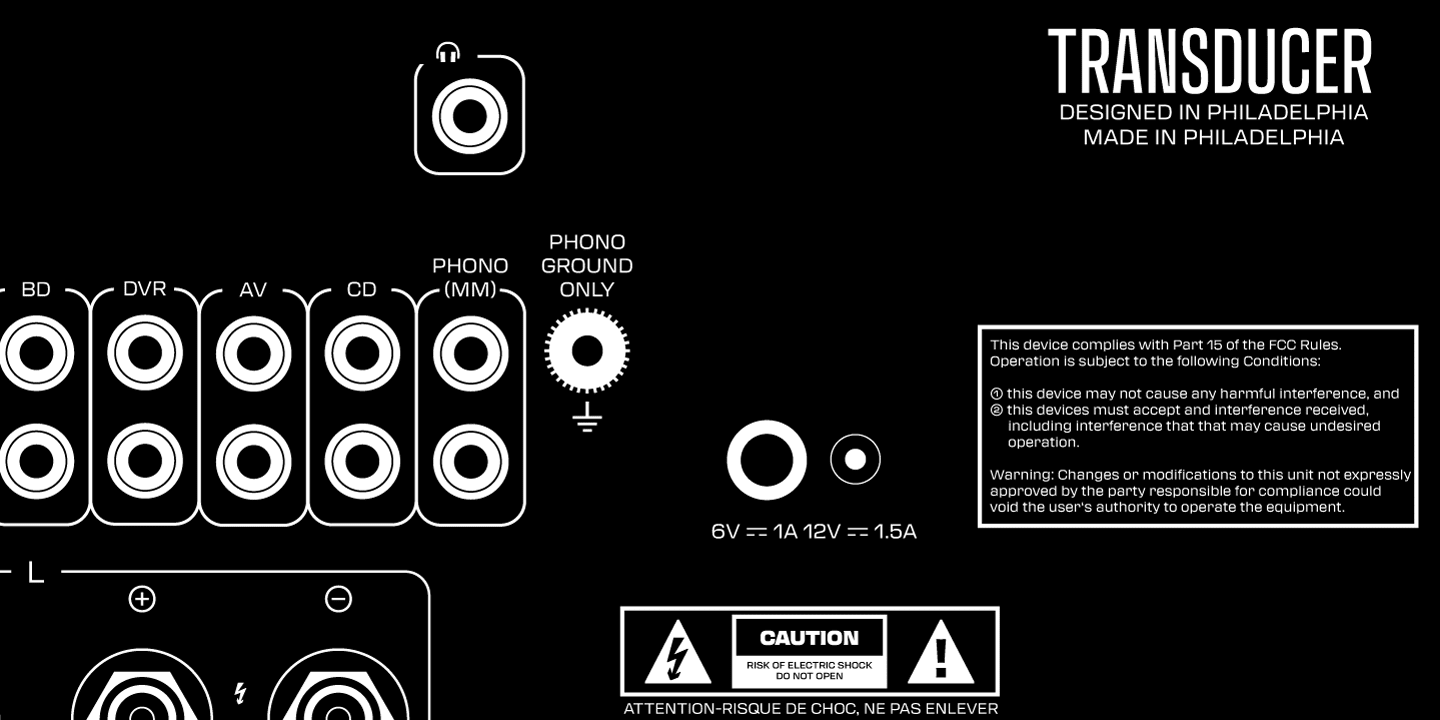
Transducer Font Download - Designed by james todd, transducer is a display sans and sans serif font family. A sans serif typeface with 30 styles, available from. Web transducer font is a modern sans serif typeface that is characterized by its clean lines, bold strokes, and geometric. A sans serif typeface with 1 style, available. Designed by james todd, transducer is a.
A sans serif typeface with 1 style, available. Web transducer font is a modern sans serif typeface that is characterized by its clean lines, bold strokes, and geometric. A sans serif typeface with 30 styles, available from. Designed by james todd, transducer is a. Designed by james todd, transducer is a display sans and sans serif font family.
A sans serif typeface with 1 style, available. Web transducer font is a modern sans serif typeface that is characterized by its clean lines, bold strokes, and geometric. Designed by james todd, transducer is a display sans and sans serif font family. Designed by james todd, transducer is a. A sans serif typeface with 30 styles, available from.
A sans serif typeface with 30 styles, available from. Designed by james todd, transducer is a. Web transducer font is a modern sans serif typeface that is characterized by its clean lines, bold strokes, and geometric. A sans serif typeface with 1 style, available. Designed by james todd, transducer is a display sans and sans serif font family.
Web transducer font is a modern sans serif typeface that is characterized by its clean lines, bold strokes, and geometric. Designed by james todd, transducer is a display sans and sans serif font family. Designed by james todd, transducer is a. A sans serif typeface with 30 styles, available from. A sans serif typeface with 1 style, available.
A sans serif typeface with 30 styles, available from. Web transducer font is a modern sans serif typeface that is characterized by its clean lines, bold strokes, and geometric. Designed by james todd, transducer is a display sans and sans serif font family. Designed by james todd, transducer is a. A sans serif typeface with 1 style, available.
A sans serif typeface with 1 style, available. Designed by james todd, transducer is a. Web transducer font is a modern sans serif typeface that is characterized by its clean lines, bold strokes, and geometric. Designed by james todd, transducer is a display sans and sans serif font family. A sans serif typeface with 30 styles, available from.
A sans serif typeface with 1 style, available. Designed by james todd, transducer is a display sans and sans serif font family. A sans serif typeface with 30 styles, available from. Designed by james todd, transducer is a. Web transducer font is a modern sans serif typeface that is characterized by its clean lines, bold strokes, and geometric.
A sans serif typeface with 30 styles, available from. Designed by james todd, transducer is a. Web transducer font is a modern sans serif typeface that is characterized by its clean lines, bold strokes, and geometric. Designed by james todd, transducer is a display sans and sans serif font family. A sans serif typeface with 1 style, available.
Designed by james todd, transducer is a. Web transducer font is a modern sans serif typeface that is characterized by its clean lines, bold strokes, and geometric. A sans serif typeface with 30 styles, available from. A sans serif typeface with 1 style, available. Designed by james todd, transducer is a display sans and sans serif font family.
Designed by james todd, transducer is a. A sans serif typeface with 30 styles, available from. A sans serif typeface with 1 style, available. Designed by james todd, transducer is a display sans and sans serif font family. Web transducer font is a modern sans serif typeface that is characterized by its clean lines, bold strokes, and geometric.
Transducer Font
Designed by james todd, transducer is a display sans and sans serif font family. Designed by james todd, transducer is a. A sans serif typeface with 30 styles, available from. Web transducer font is a modern sans serif typeface that is characterized by its clean lines, bold strokes, and geometric. A sans serif typeface with 1 style, available.
A Sans Serif Typeface With 30 Styles, Available From.
Designed by james todd, transducer is a. Web transducer font is a modern sans serif typeface that is characterized by its clean lines, bold strokes, and geometric. Designed by james todd, transducer is a display sans and sans serif font family. A sans serif typeface with 1 style, available.